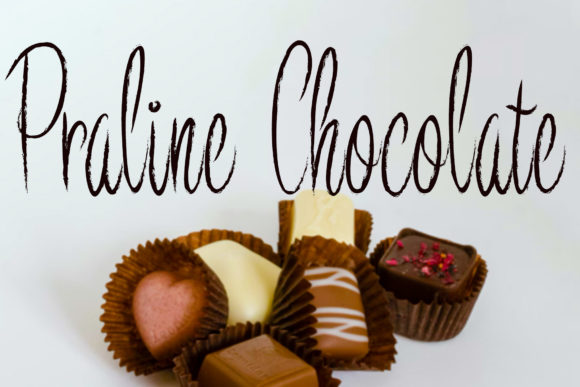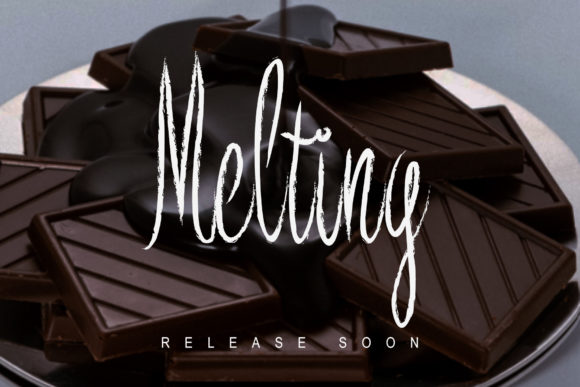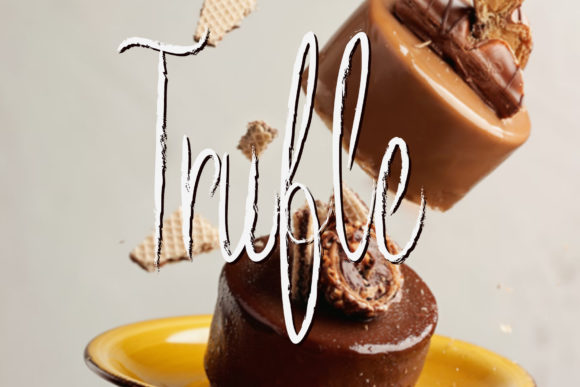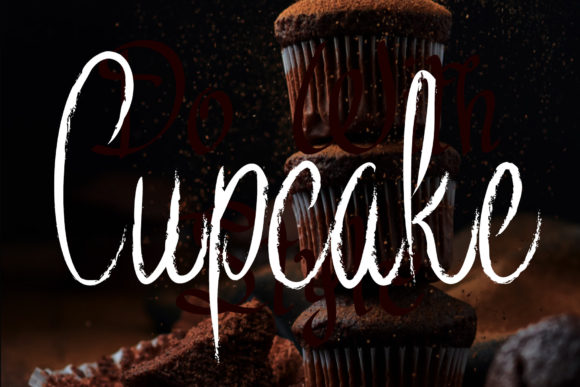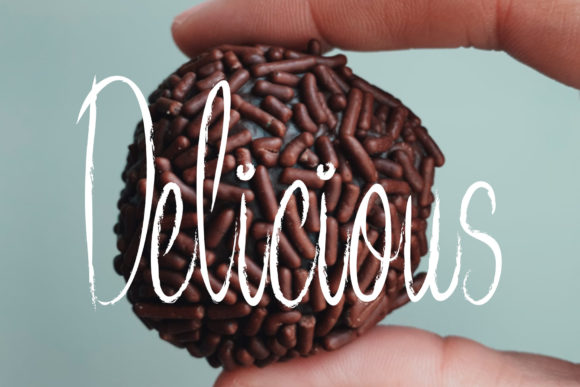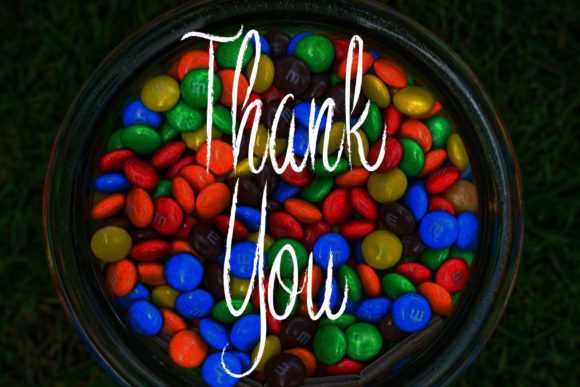
Introducing Black Chocolate Font: The Ultimate Display Font for Your Design Needs
Are you on the lookout for a font that can add a touch of elegance and playfulness to your designs? Look no further than the Black Chocolate Font! This display font is incredibly versatile and can be used to create a wide range of designs, from wedding invitations to business cards, and everything in between.
What Makes Black Chocolate Font So Special?
Black Chocolate Font is a unique and stylish font that is sure to capture the attention of your audience. Its simple yet fun design makes it perfect for adding a touch of personality to your designs. Whether you’re creating a wedding invitation, a thank you card, or a quote, this font is sure to make your design stand out.
Uses for Black Chocolate Font
One of the best things about Black Chocolate Font is its versatility. Here are just a few ideas for how you can use this amazing font:
- Wedding Invitations: Add a touch of elegance and sophistication to your wedding invitations with Black Chocolate Font. Its simple yet stylish design makes it perfect for formal and informal weddings alike.
- Thank You Cards: Show your appreciation with a personalized thank you card featuring Black Chocolate Font. This font is sure to make your card stand out and leave a lasting impression.
- Quotes: Add a touch of personality to your quotes with Black Chocolate Font. This font is perfect for social media posts, blogs, and other online content.
- Greeting Cards: Create beautiful and unique greeting cards for any occasion with Black Chocolate Font. This font is sure to add a touch of fun and playfulness to your designs.
- Logos: Use Black Chocolate Font to create a unique and memorable logo for your business. This font is perfect for businesses that want to add a touch of personality to their brand.
- Business Cards: Stand out from the crowd with a business card featuring Black Chocolate Font. This font is sure to make your business card memorable and leave a lasting impression.
Why Designers and Crafters Love Black Chocolate Font
Black Chocolate Font is a favorite among designers and crafters for many reasons. Here are just a few:
- Easy to Read: Black Chocolate Font is easy to read, even at small sizes. This makes it perfect for designs that require a lot of text, such as business cards and wedding invitations.
- Versatile: Black Chocolate Font can be used for a wide range of designs, from formal to informal. Its simple yet stylish design makes it perfect for any occasion.
- Unique: Black Chocolate Font is a unique and stylish font that is sure to make your designs stand out. Its fun and playful design makes it perfect for designers and crafters who want to add a touch of personality to their work.
Tips for Using Black Chocolate Font
Here are a few tips for using Black Chocolate Font in your designs:
- Pair it with Other Fonts: Black Chocolate Font pairs well with a variety of other fonts. Try pairing it with a script font for a romantic look or a sans-serif font for a modern look.
- Use it for Headlines: Black Chocolate Font is perfect for headlines and titles. Its large and bold design makes it easy to read and attention-grabbing.
- Experiment with Colors: Black Chocolate Font looks great in a variety of colors. Try experimenting with different colors to find the one that works best for your design.
Black Chocolate Font is a versatile and stylish display font that is perfect for designers and crafters. Its simple yet fun design makes it perfect for a wide range of designs, from wedding invitations to business cards. With its ease of use and unique design, Black Chocolate Font is sure to become a favorite in your design arsenal.